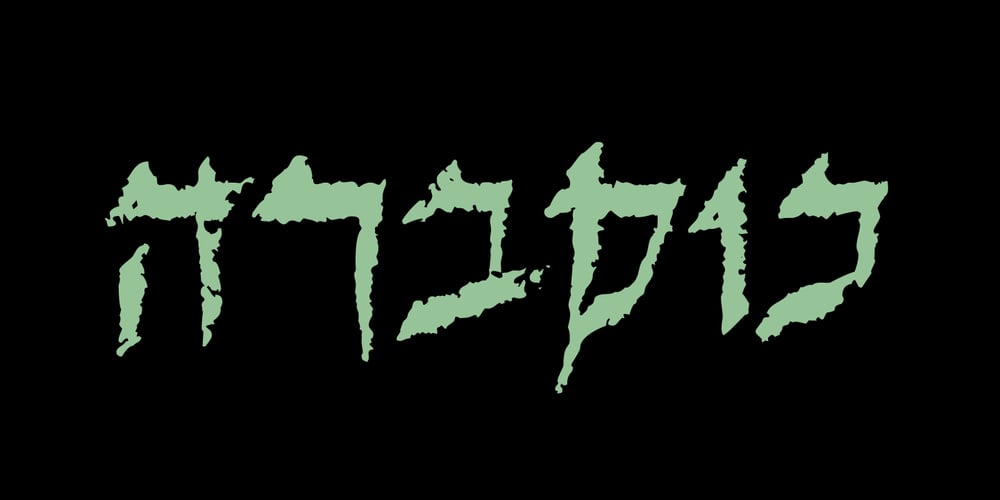
Kumran MF Font Family was designed by Gad Almaliach and published by Masterfont. Kumran MF contains 1 styles and family package options. Inspired by old scrolls found in caves near the Dead Sea. This font is unique by its flow and contrast, enabling traditional typeface gain a new and clear flow and rhythm.